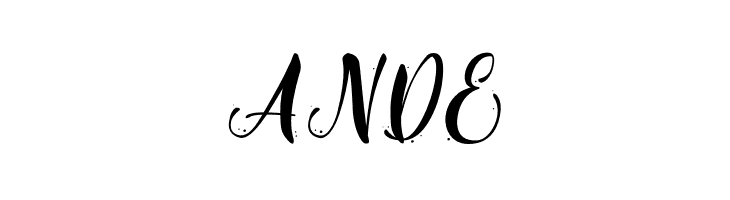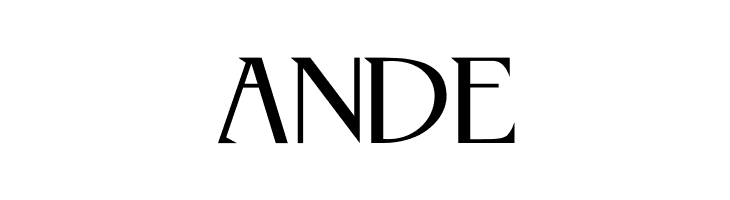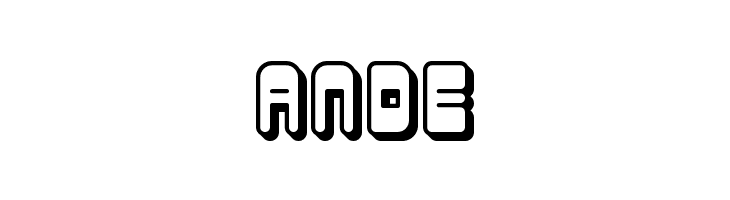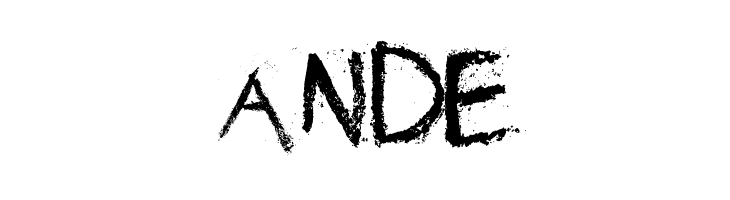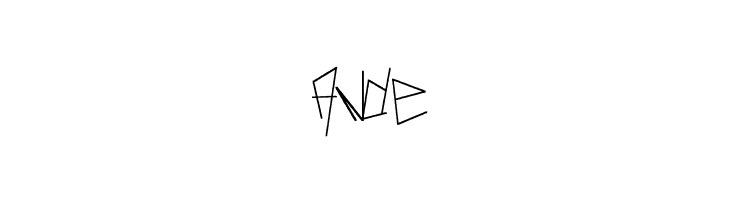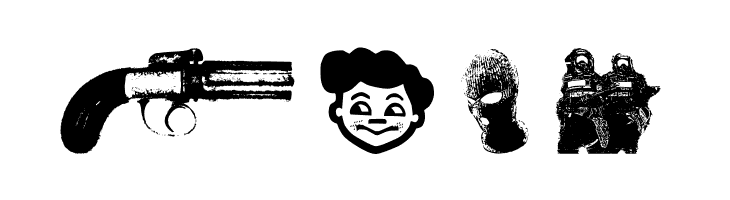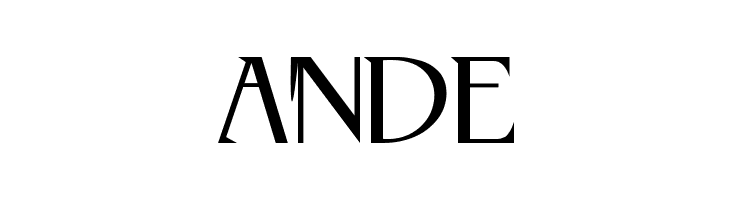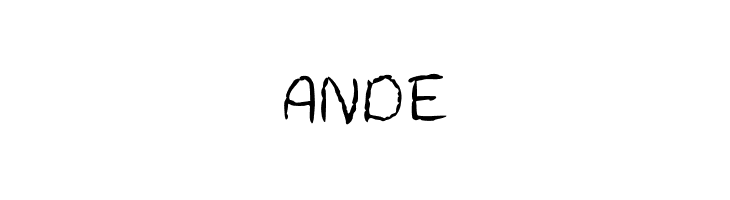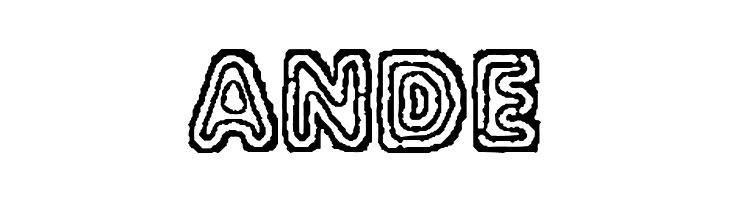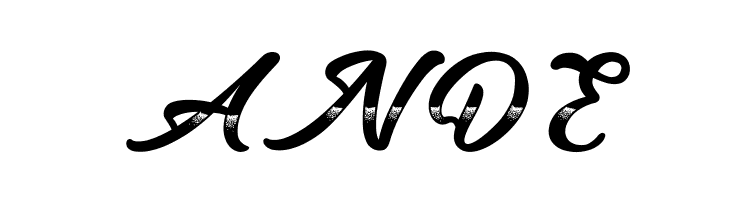
An elegant and flowing script font with ornate, decorative letterforms.
A playful, hand-drawn font with dynamic strokes and a whimsical style.
A bold, modern sans-serif font with clean lines and consistent stroke width.
A bold, modern sans-serif font with excellent legibility and balance.
A modern, geometric sans-serif font with uniform stroke width and excellent readability.
A sleek, modern font with clean, geometric lines and a minimalist aesthetic.
A modern, thin-lined font with a minimalist and elegant style.
A modern, clean font with thin, geometric strokes and high readability.
A clean, geometric sans-serif font with a modern and minimalist design.
A modern, geometric sans-serif font with clean lines and balanced spacing.
A minimalist, ultralight font with clean, geometric lines and consistent spacing.
An ultralight, minimalist font with clean lines and modern elegance.
A playful collection of hand-drawn dingbats featuring whimsical designs.
A playful, irregular font with a hand-drawn, whimsical style.
A textured, hand-drawn font with a chalk-like appearance.
A bold, outlined font with a playful, retro style.
A pixelated, grid-based font with a retro digital aesthetic.
A graffiti-inspired font with sharp, angular lines and an edgy, rebellious style.
A dynamic, expressive script font with a playful, handwritten style.
A bold, brush-style script font with a dynamic and artistic flair.
A dynamic cursive font with bold, sweeping strokes and elegant curves.
A bold, geometric font with rounded edges and a futuristic style.
Bold, playful font with a shadow effect for a 3D look.
A modern, artistic font with sharp angles and smooth curves.
A modern, elegant font with sharp angles and smooth curves.
A bold, geometric font with sharp angles and a modern industrial feel.
A bold, narrow font with high contrast and sharp angles.
A pictogram dingbat font with eclectic, illustrated symbols.
A playful, festive handwritten font with bold, rounded characters.
A playful, interconnected font with a modern and flowing design.